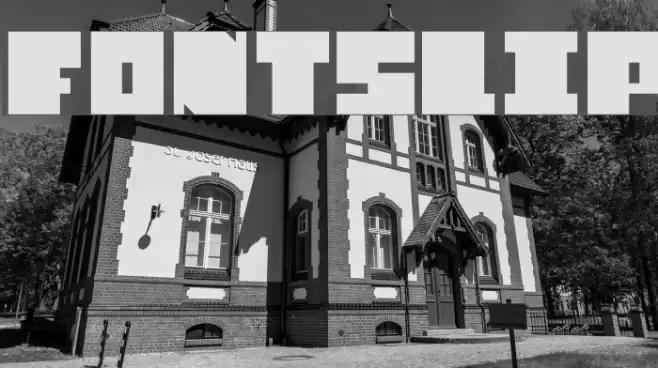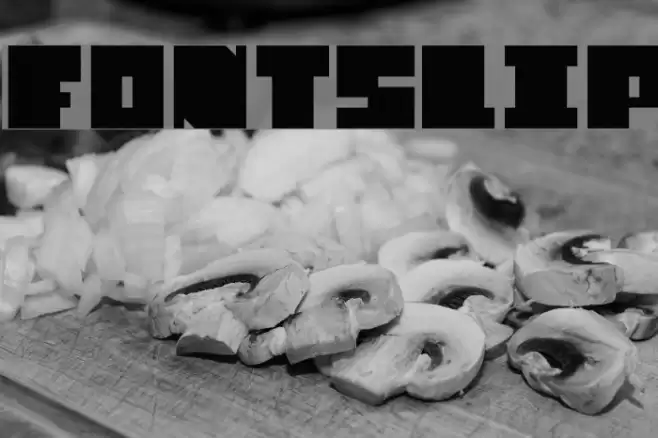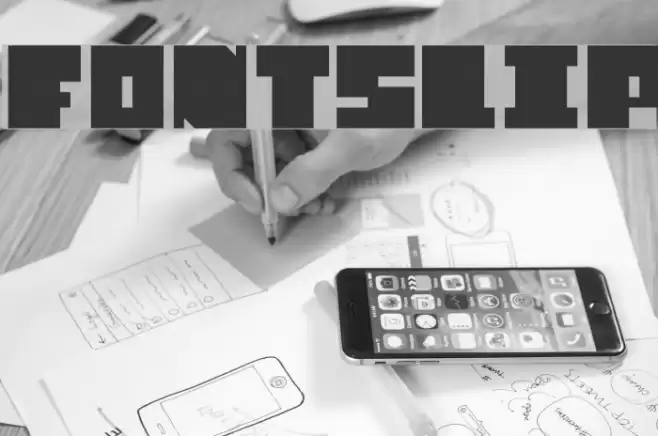
FontSlip Font
FontSlip Description
This font features a bold, geometric design with a strong emphasis on blocky shapes and sharp angles. The characters are uniformly wide, creating a cohesive and impactful appearance. The uppercase letters are particularly striking, with a consistent height and width that enhances readability while maintaining a distinctive style. The lowercase letters mirror the uppercase in terms of width, contributing to a uniform look across different text cases. Numbers and special characters follow the same design principles, ensuring a seamless integration within any text. The overall aesthetic is modern and assertive, making it ideal for projects that require a strong visual presence.
A bold, geometric font with blocky shapes and sharp angles from Uncategorized fonts.